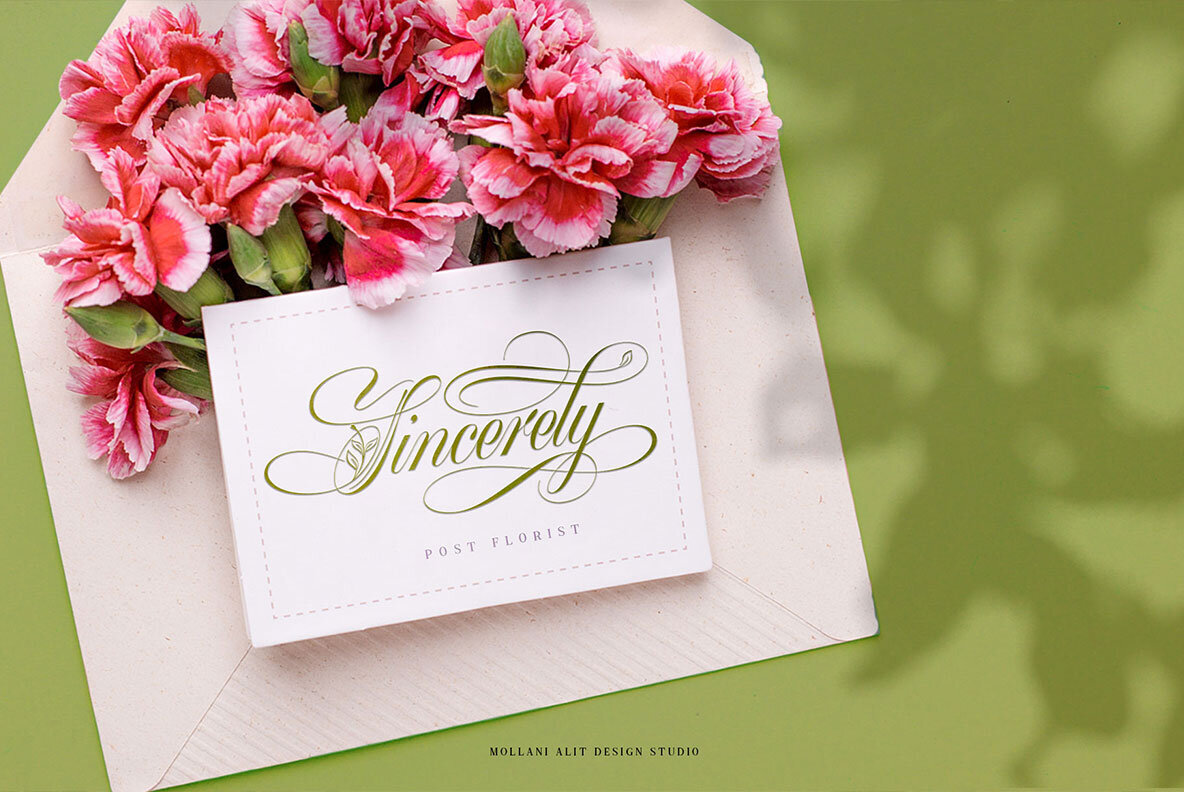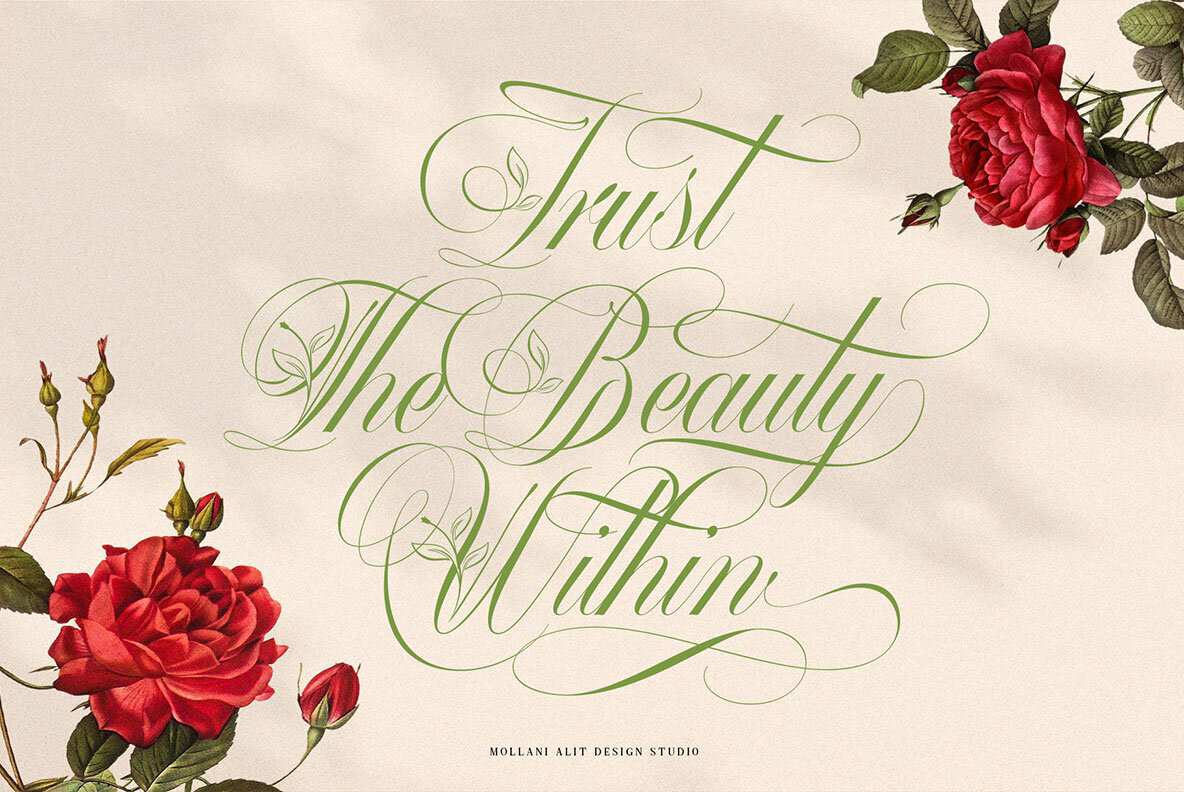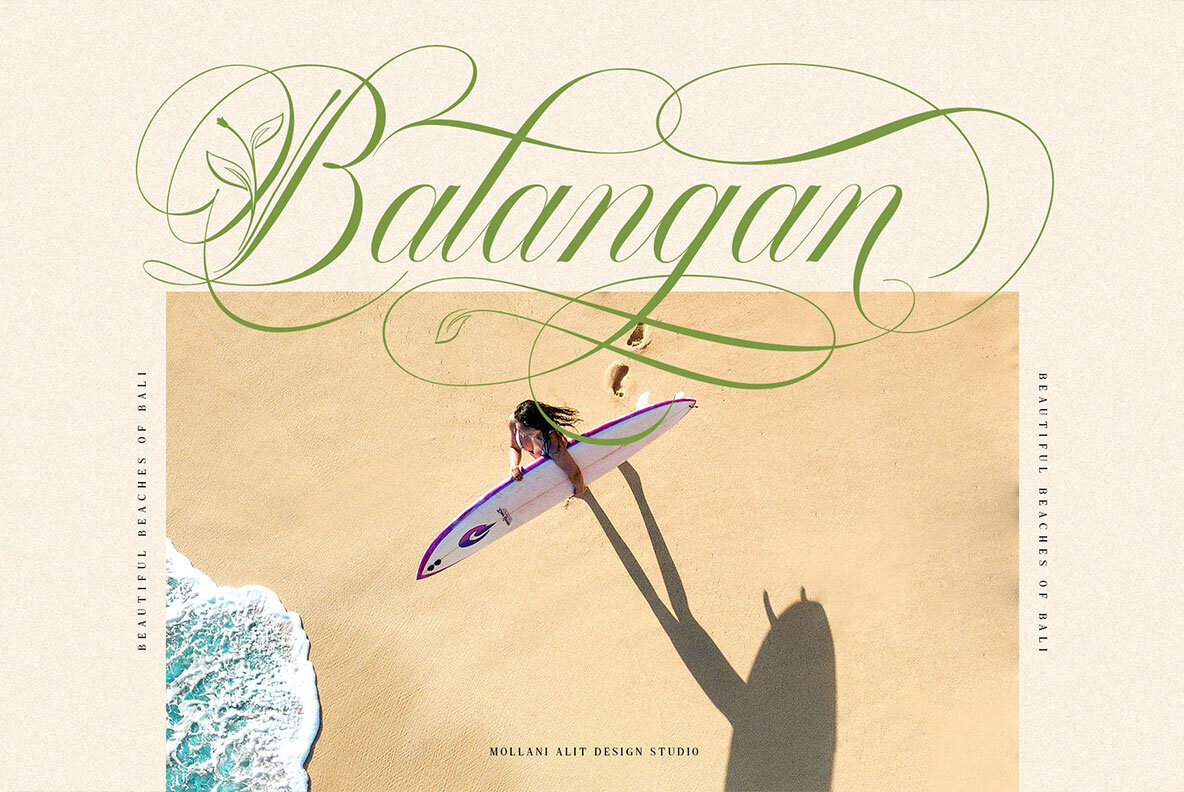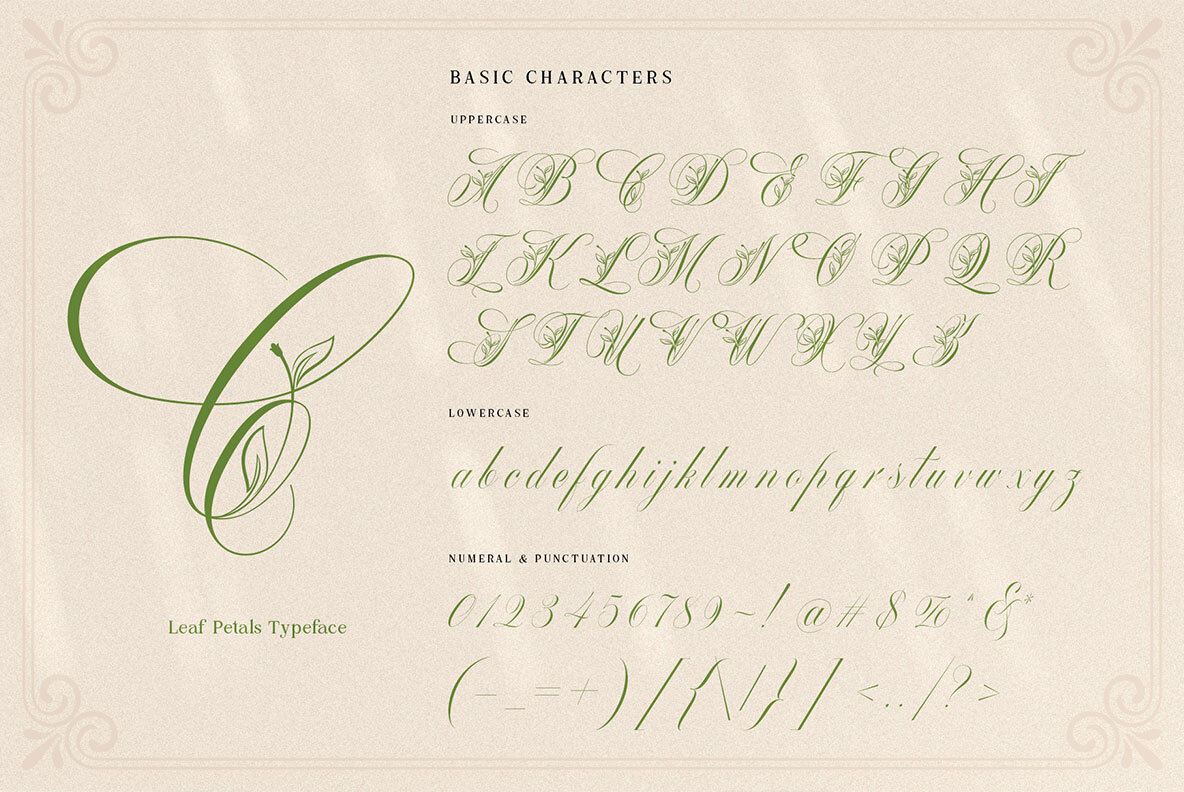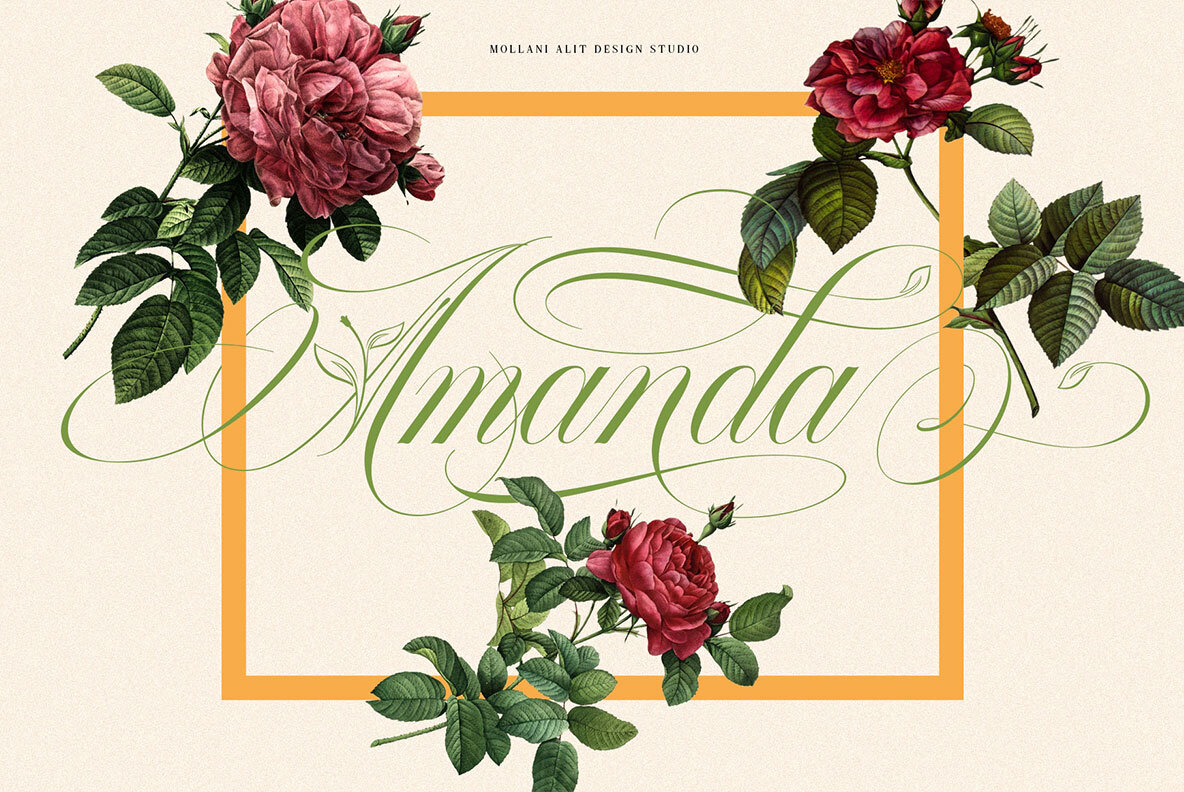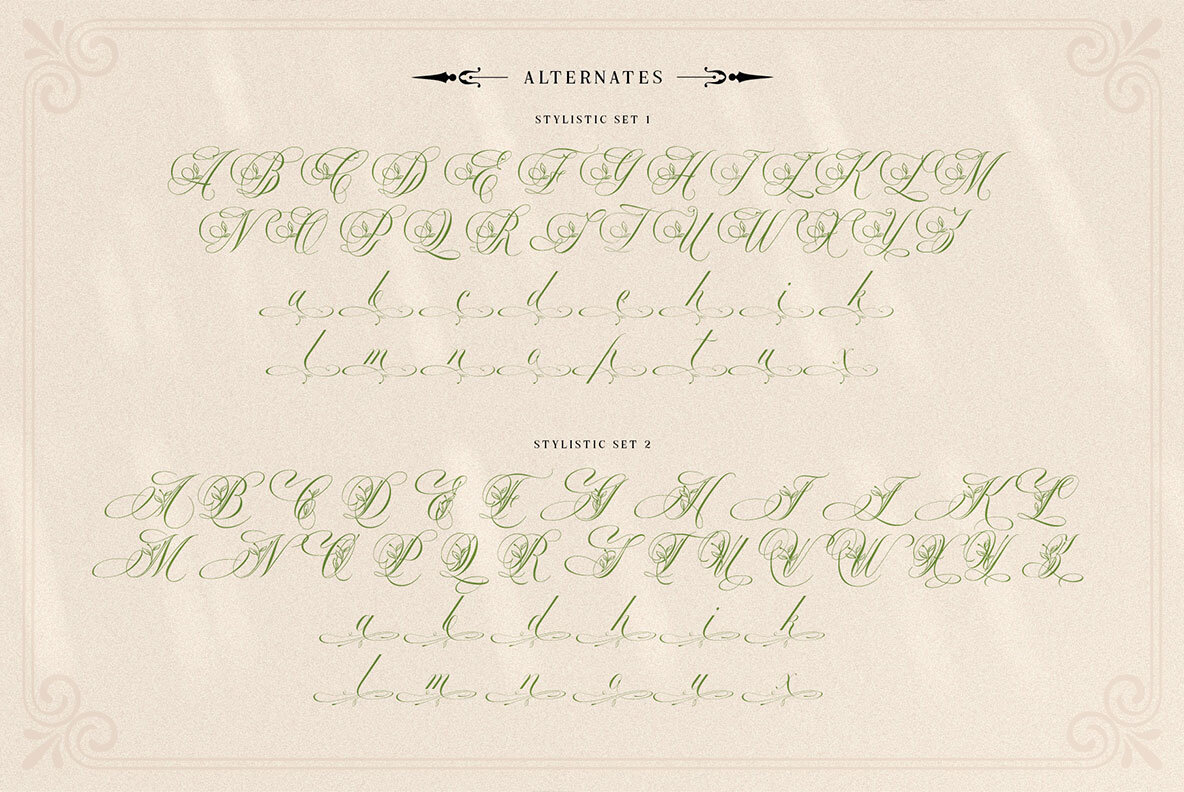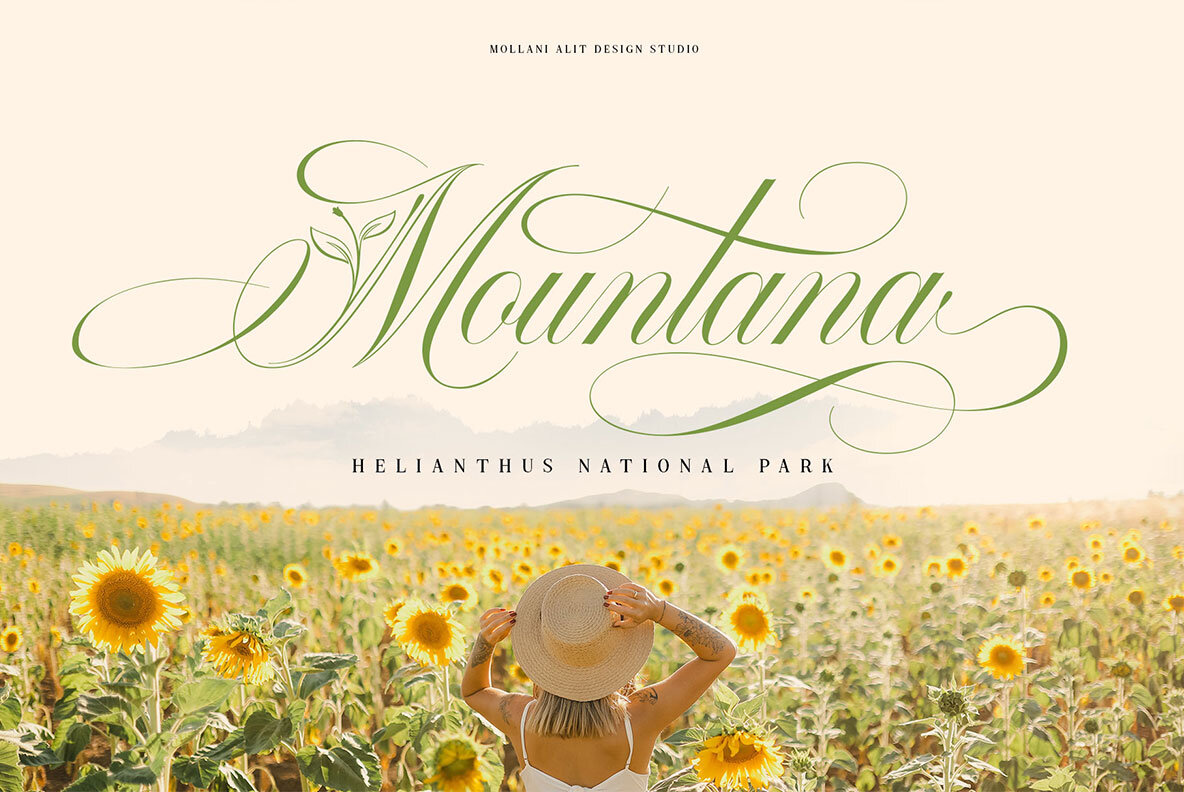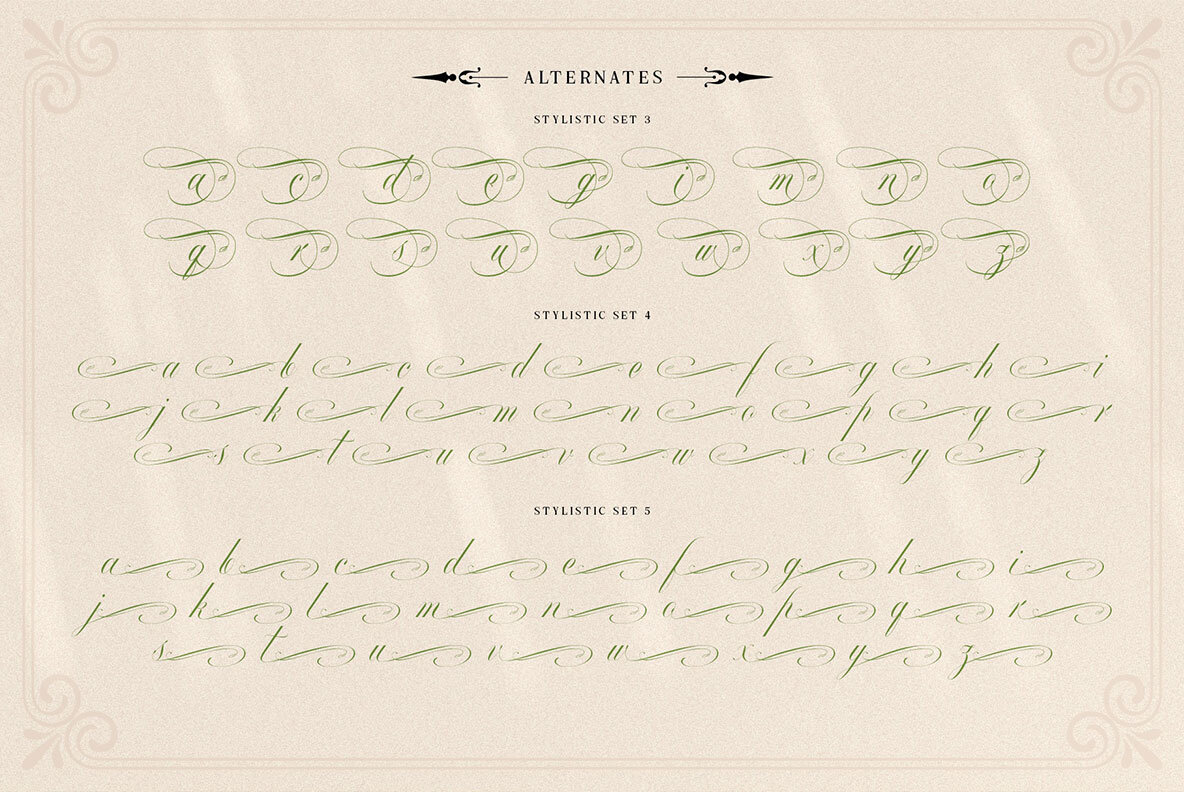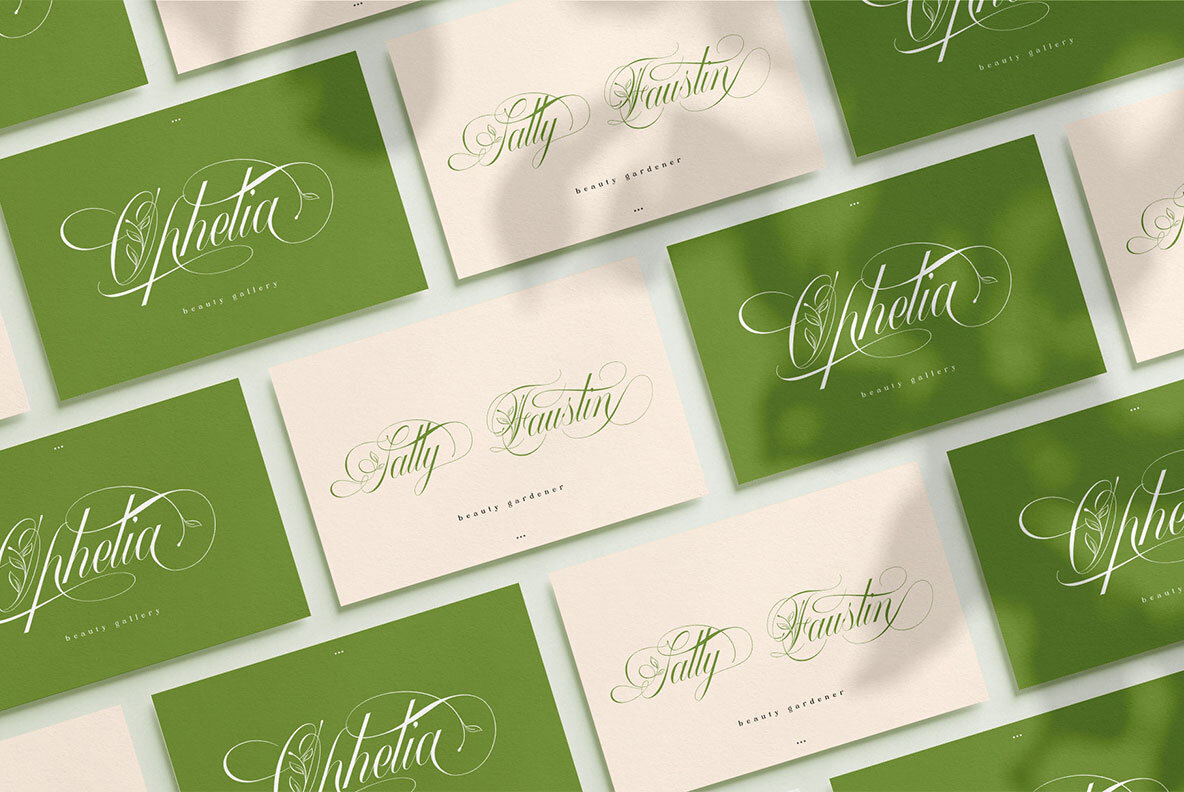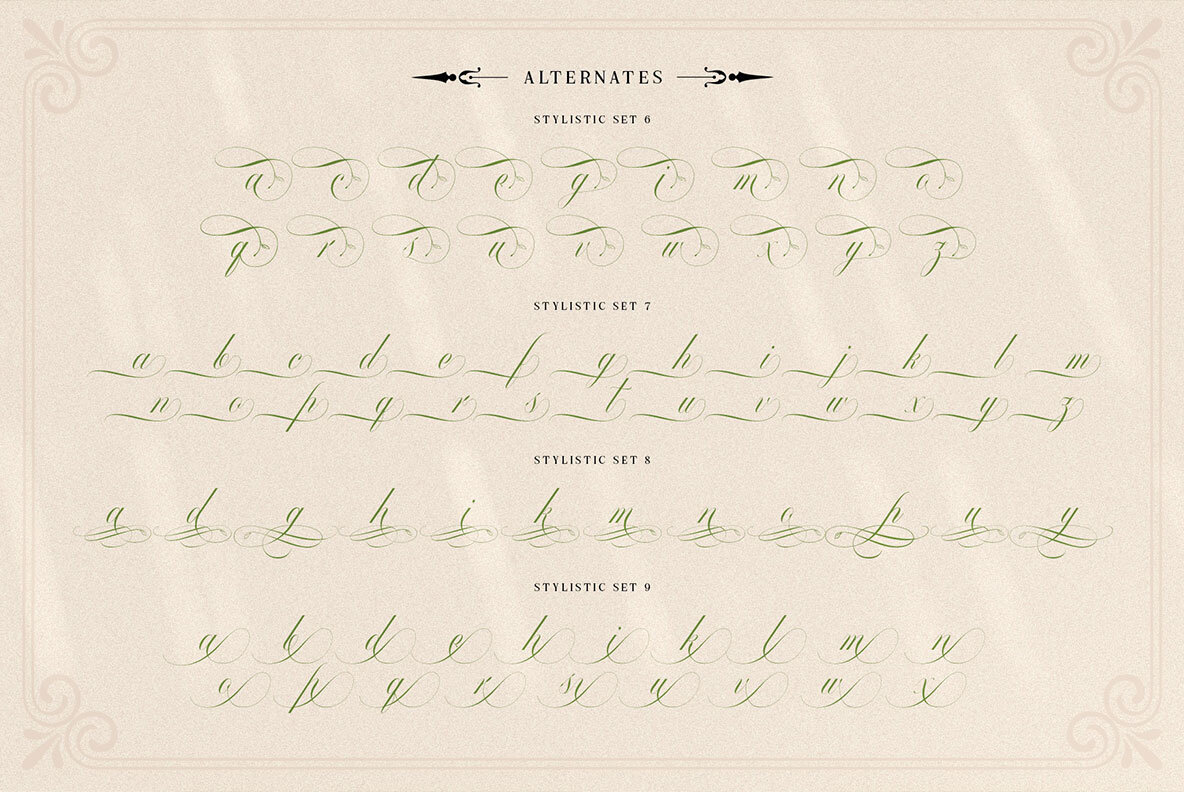
Mollani Font
Mollani Regular
Welcome to the elegant world of the Mollani script font. Mollani draws inspiration from nature, elegantly blending script elements with ornate leaf motifs. Its unique composition adds a distinctive character to any project, making it perfect for those seeking a fusion of grace and nature-infused design. With Mollani, dive into a versatile font that caters to diverse creative needs, from natural calligraphy to nuanced design projects. Usability is enhanced by full Unicode support, ensuring smooth use across various applications.Mollani: Nature-Inspired Script Font